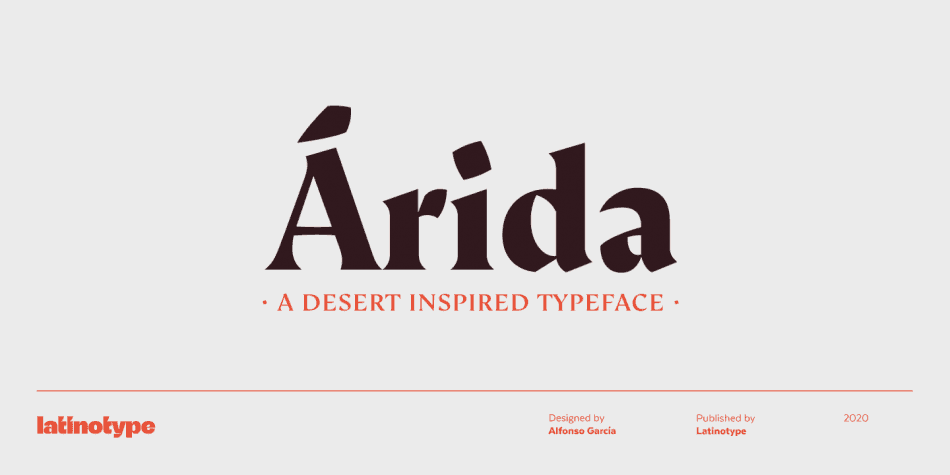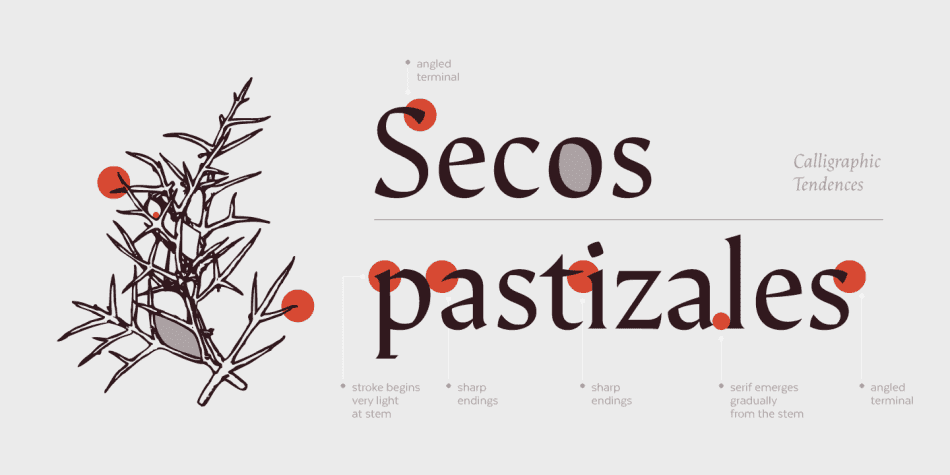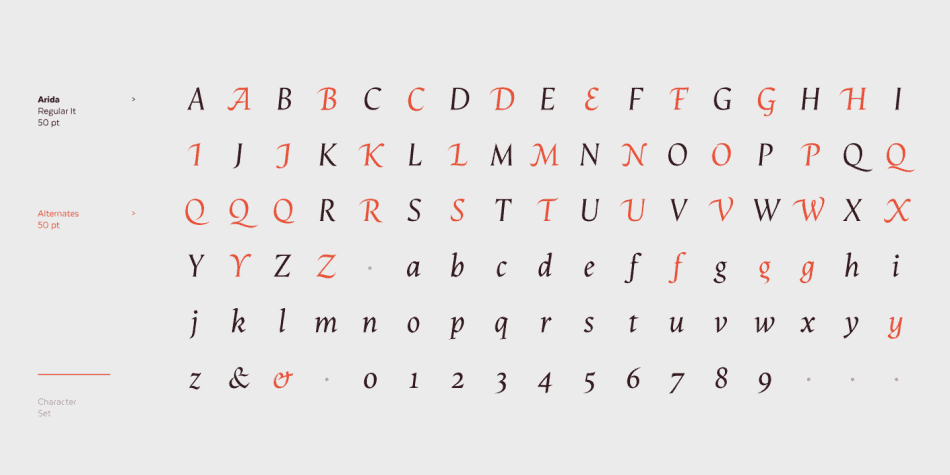
Arida font family is an outstanding contemporary serif font family created by Alfonso Garcia and published by Latinotype. Arida features five designs (Regular, Italic, Medium Black Bold styles). Regular font contains hundreds of glyphs while its Italic counterpart contains over 900 distinct glyphs; both fonts also include ligatures, contextual alternates and various styles of figures such as small caps or stylistic figures for extra flair.